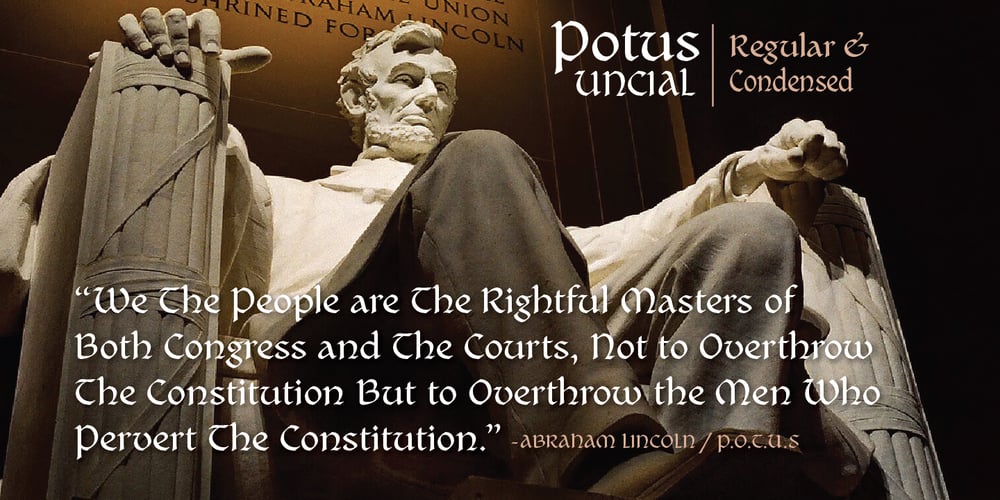
Potus Uncial
Potus Uncial font
Potus Uncial Font Family was designed by John Nahmias and published by Jonahfonts. Potus Uncial contains 2 styles and family package options. The Uncial alphabet is a majuscule script with unjoined letters which is found in European manuscripts of the 4th to 8th centuries and from which modern capital letters are derived.Potus Uncial is designed with lowercase letters reflecting the Uncial style while keeping them as close to the original majuscule script Uncials and making it a useful modern day font.I have found it to be appropriate for historic, medical and spatial topics and may be used in packaging designs, medical journals, declarations, greeting cards and prehistoric articles.